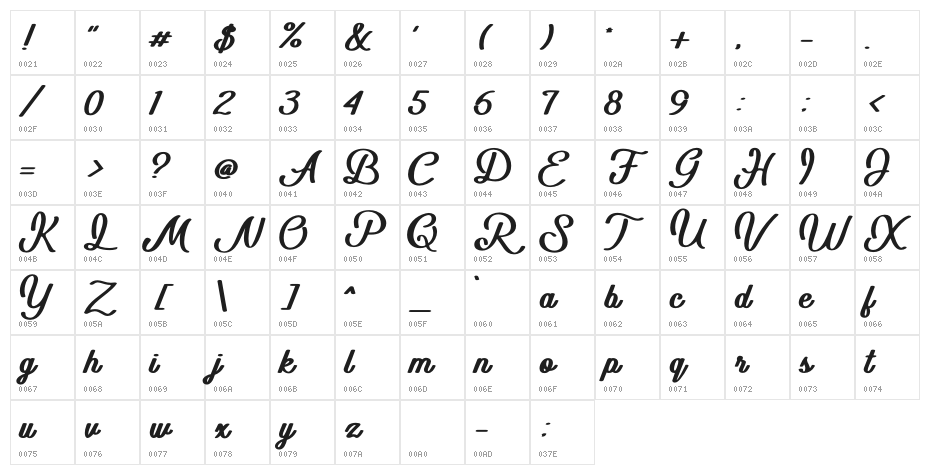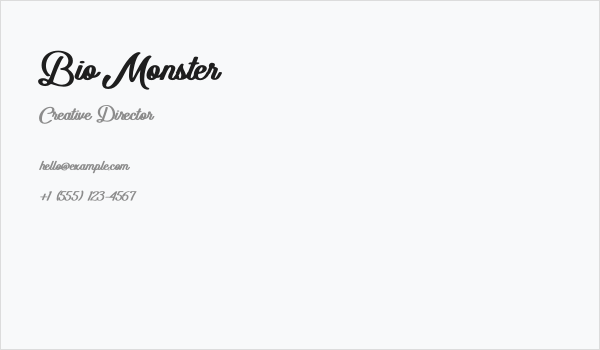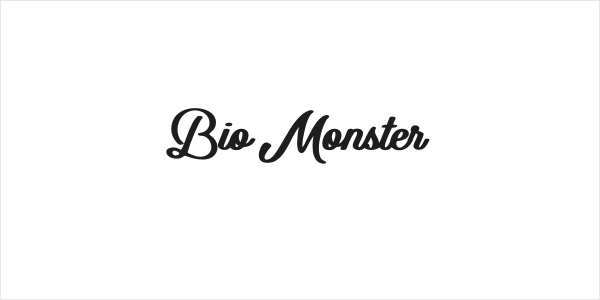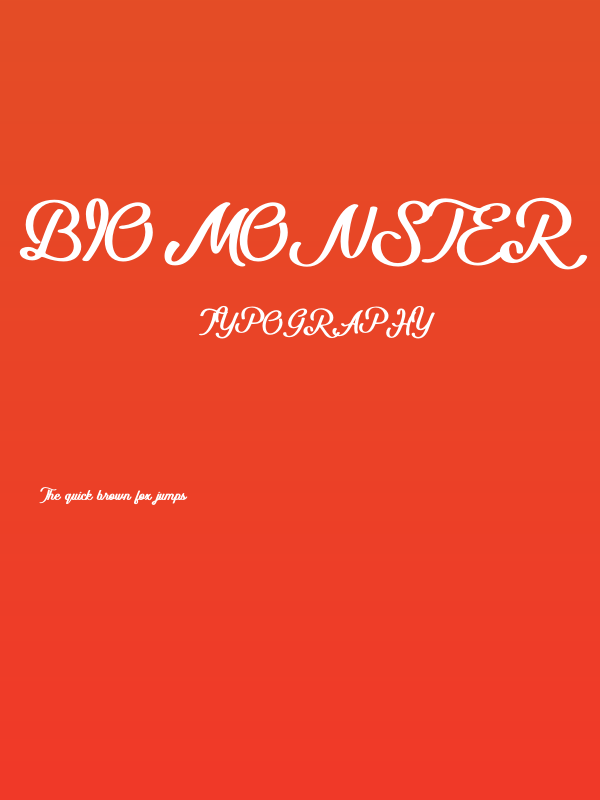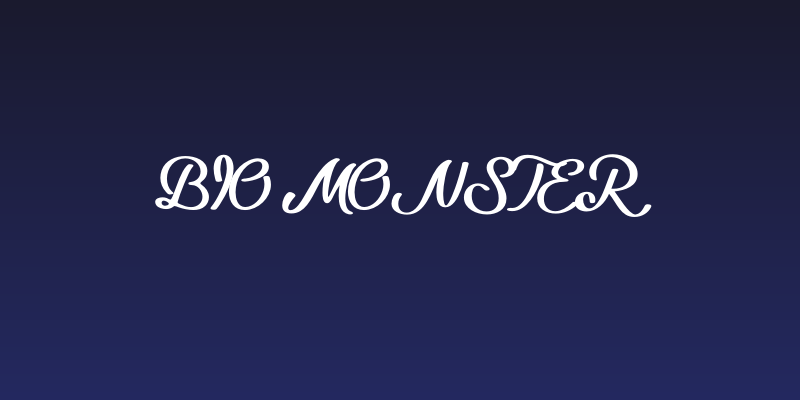
Bio Monster Font
Bio Monster Description
This font features a bold and flowing script style that combines elegance with a touch of playfulness. The uppercase letters are intricately designed with smooth curves and loops, giving them a sophisticated yet approachable appearance. The lowercase letters maintain a consistent flow, enhancing readability while preserving the decorative nature of the font. Numbers are bold and clear, making them suitable for various applications. Special characters are thoughtfully integrated, ensuring they complement the overall aesthetic. This font is ideal for projects that require a personal touch, such as invitations, greeting cards, or branding materials.
| Proposed Projects | Ideal for invitations, greeting cards, branding, and decorative signage. |